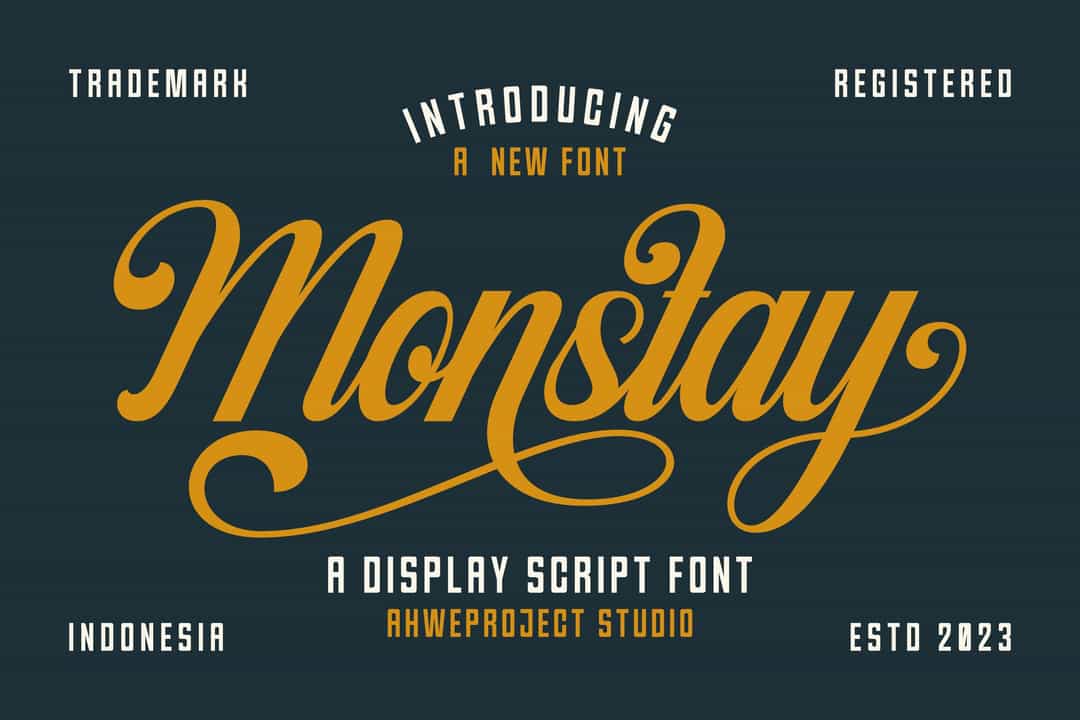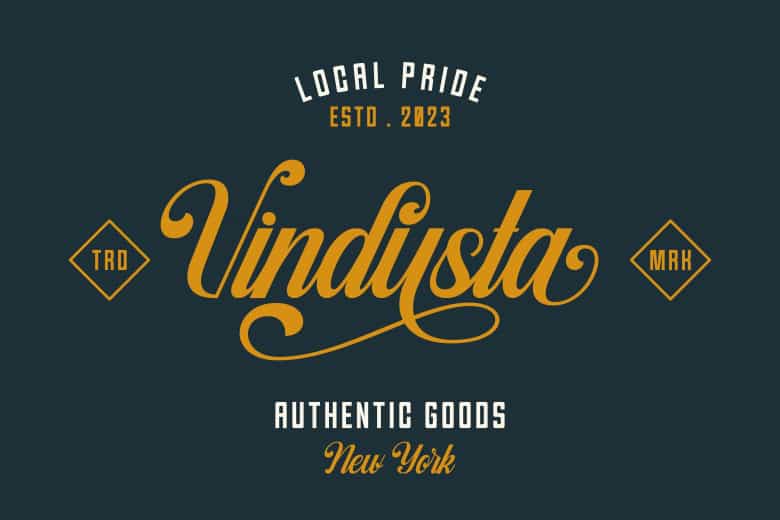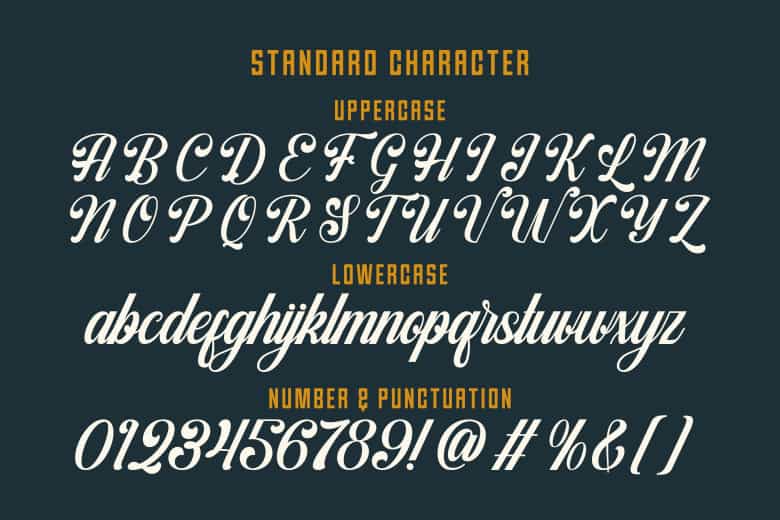
Monstay is an elegant script font that captures the beauty of calligraphy while adding an air of sophistication. Its letterforms have been meticulously developed for optimum precision; creating the ideal blend between elegance and classiness – perfect for logo designs! This font was specifically created with logo use in mind.